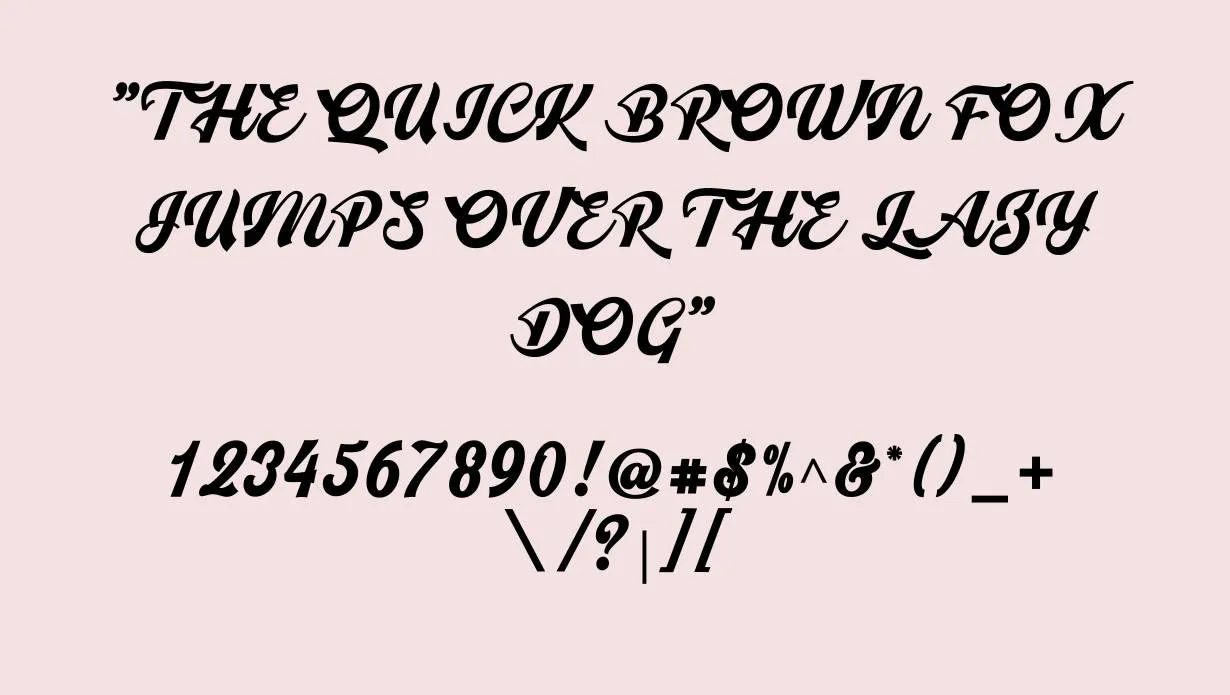
Srikandy Script Font is a friendly and flowing script typeface that captures the natural flow of handwriting.
| Name | Srikandy Script Font |
| Designer | Picatype Studio |